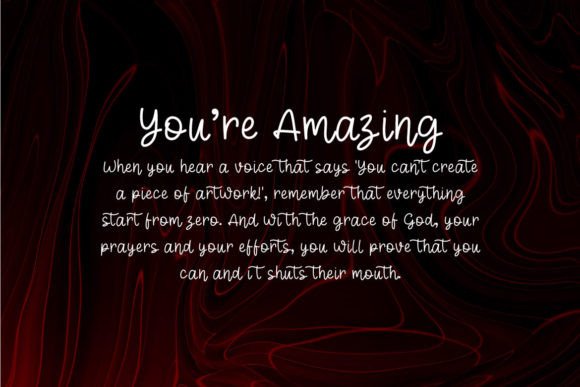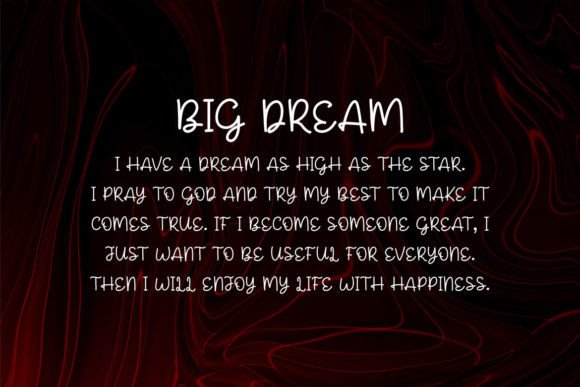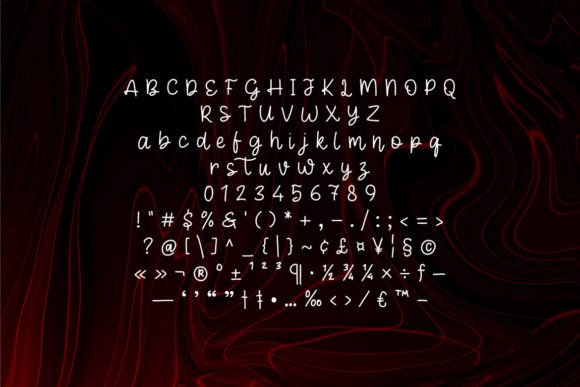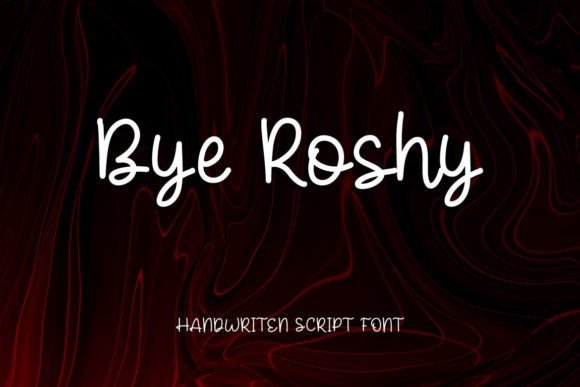
When Words Flow Like Water
Have you ever been stuck in the middle of a creative project, staring at a blank page, and then suddenly, inspiration strikes? The words begin to flow, and your imagination runs wild. This is the magic that happens when you find the perfect font to bring your vision to life.
Enter Bye Roshy Font, a delicate and elegant handwritten font that has captured the hearts of designers and artists alike. Its beautiful and well-balanced characters make it the perfect match for a wide range of designs, from elegant invitations to whimsical illustrations. Whether you’re a seasoned designer or a budding artist, Bye Roshy Font is a valuable addition to your toolkit.
With its flowing script and versatile style, Bye Roshy Font is the perfect choice for designers who want to add a touch of sophistication and elegance to their work. So, if you’re looking for a font that will make your words shine, look no further than Bye Roshy Font.
Bye Roshy Font Key Features
- Font Family: Bye Roshy
- Character Set: Supports a wide range of languages, including Latin, Cyrillic, and Greek
- Unique Characteristics: This font features a playful, cursive script with a mix of modern and vintage elements, making it perfect for creative projects and designs that require a touch of whimsy
Designer Review: Bye Roshy Font
Overall, I think Bye Roshy Font is a solid addition to any typographer’s arsenal. ✨ Its unique blend of modern and vintage elements makes it perfect for creating eye-catching headings and titles.
The font’s bold and playful personality shines through in its letterforms, making it ideal for use in design projects where you want to convey a sense of fun and approachability. ✨ The font’s versatility also makes it suitable for a wide range of industries, from fashion and beauty to food and lifestyle.
However, there are a few limitations to consider: ⚠️ The font may not be the best choice for body text, as its bold lines and playful flair can make it difficult to read in large quantities. Additionally, the font’s lack of subtlety may not be suitable for more formal or professional projects.
Here are a few things to keep in mind when using Bye Roshy Font:
- Use it sparingly to add a touch of whimsy and personality to your designs.
- Pair it with a clean and simple sans-serif font for body text to create a visually appealing contrast.
- Avoid using it for large blocks of text or for projects where readability is crucial.
Overall, I think Bye Roshy Font is a great choice for designers who want to add a little extra flair to their projects. With a little creativity and restraint, it can be a powerful tool in your design toolkit.
The Bye Roshy Font is suitable for various design projects, including social media graphics, blog posts, and marketing materials. Its playful and creative style makes it perfect for branding and promotional materials.
Alternatives to Bye Roshy Font for Designers
The Great Vibes Font is a handwritten, cursive font that is perfect for creating a friendly and approachable atmosphere. It’s ideal for use in invitations, social media graphics, and other creative projects where a personal touch is needed.
Compared to Bye Roshy Font, Great Vibes Font has a more playful and carefree feel, making it a great choice for projects that require a lighter tone.
The Alex Brush Font is a elegant, handwritten font that is perfect for creating a sophisticated and luxurious atmosphere. It’s ideal for use in branding, packaging, and other high-end projects where a touch of class is needed.